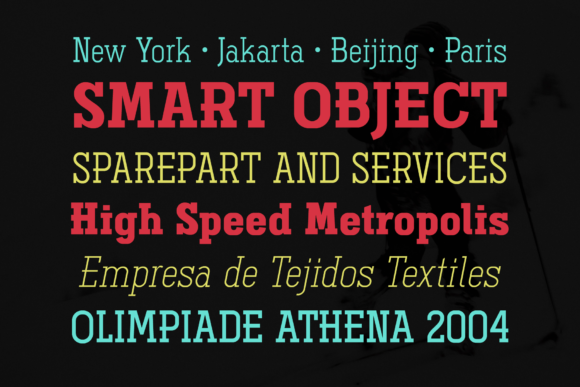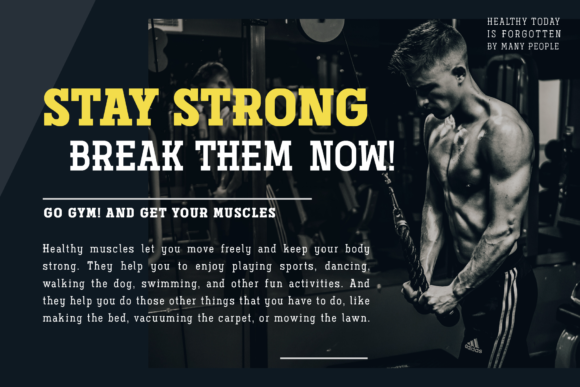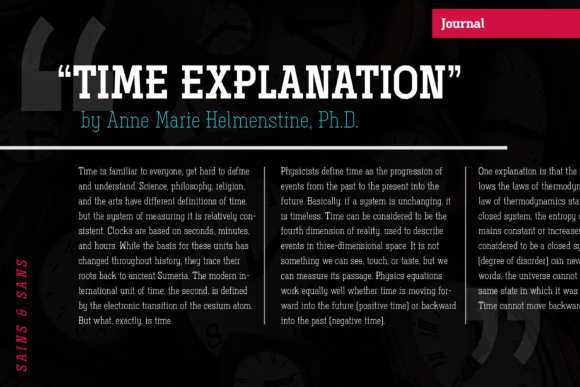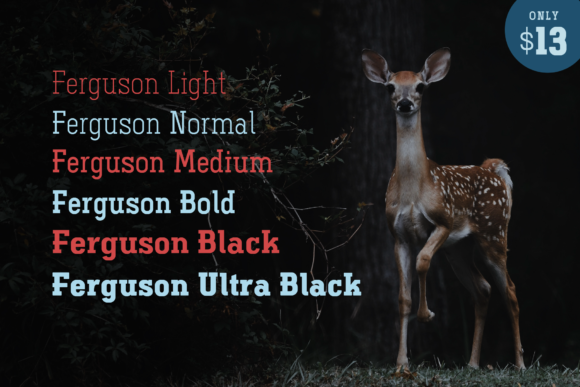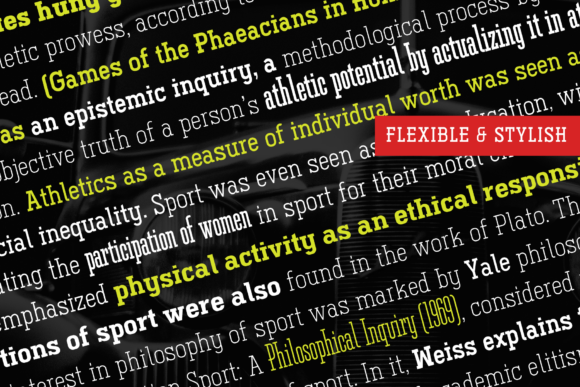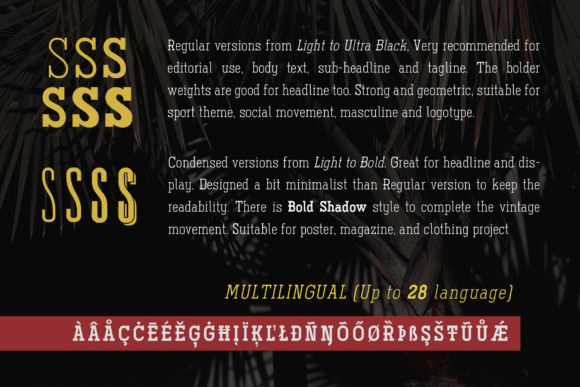
Ferguson Family Font: A Bold Vintage Typeface with a Strong Western Feel
Are you looking for a font that can add a touch of rugged elegance to your creative projects? Look no further than the Ferguson Family Font, a bold vintage typeface inspired by the classic Westerns of the silver screen. With its strong feel and nostalgic charm, this font is sure to make your designs stand out from the crowd.
The Inspiration Behind Ferguson Family Font
The Ferguson Family Font is a carefully crafted typeface that draws inspiration from the iconic Western movies of the past. Its bold, rugged design is reminiscent of the classic signage and typography found in old Western towns, evoking a sense of nostalgia and timelessness. Whether you’re working on a logo, poster, or packaging design, this font is sure to add a touch of rugged sophistication to your project.
Key Features of Ferguson Family Font
So what sets the Ferguson Family Font apart from other typefaces? Here are just a few of its key features:
- Bold and Strong Design: The Ferguson Family Font features a bold, sturdy design that’s perfect for creating eye-catching headlines and titles.
- Western-Inspired Aesthetic: With its rugged, vintage feel, this font is perfect for designs that require a touch of Western charm.
- Highly Versatile: Whether you’re working on a logo, poster, or packaging design, the Ferguson Family Font is a versatile typeface that can be used in a wide range of creative projects.
- Easily Readable: Despite its bold design, the Ferguson Family Font is surprisingly easy to read, making it perfect for use in body text as well as headlines.
How to Use Ferguson Family Font in Your Designs
So how can you use the Ferguson Family Font in your designs? Here are a few ideas to get you started:
- Logos and Branding: Use the Ferguson Family Font to create a bold, eye-catching logo that’s sure to stand out.
- Posters and Flyers: Add a touch of Western charm to your posters and flyers with this rugged, vintage typeface.
- Packaging Design: Use the Ferguson Family Font to add a touch of rugged elegance to your packaging designs.
- Web Design: This font can also be used in web design to add a touch of personality to your website or blog.
Tips for Getting the Most Out of Ferguson Family Font
Here are a few tips for getting the most out of the Ferguson Family Font:
- Experiment with Different Sizes: Don’t be afraid to experiment with different font sizes to find the perfect balance for your design.
- Pair with Other Fonts: Try pairing the Ferguson Family Font with other fonts to create a unique and eye-catching design.
- Use in Combination with Images: This font looks great when used in combination with images, particularly those with a Western or vintage theme.
In conclusion, the Ferguson Family Font is a bold vintage typeface that’s perfect for designers and crafters looking to add a touch of Western charm to their creative projects. With its strong feel and nostalgic aesthetic, this font is sure to make your designs stand out from the crowd. So why not give it a try and see the difference it can make in your work?